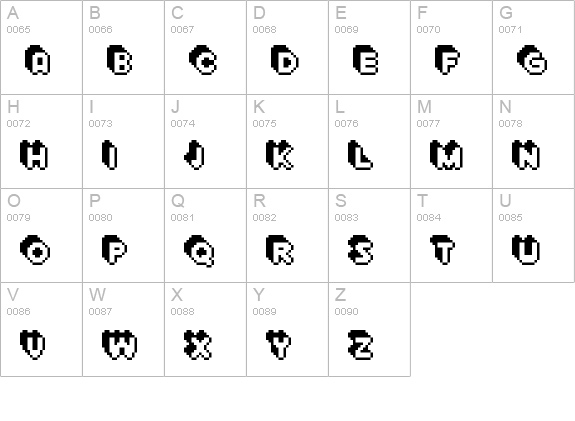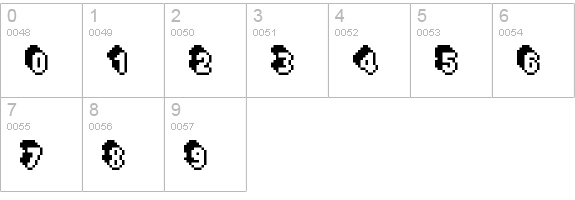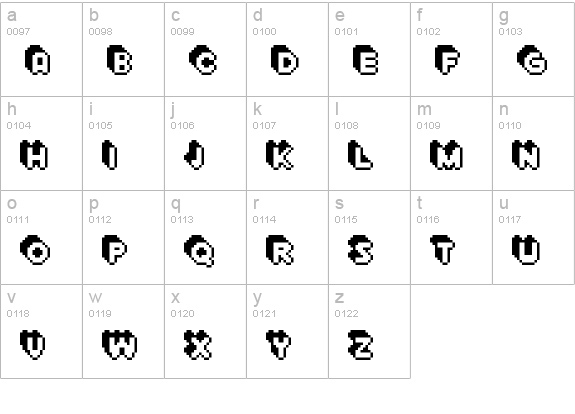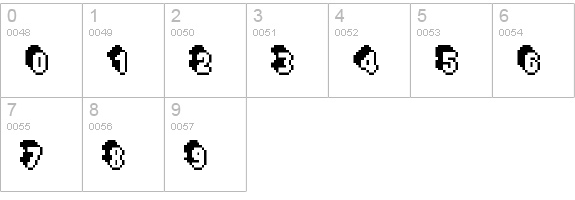
Extrude Font Details
Extrude font is a stunning and versatile typeface that exudes a sense of modernity and sophistication. Its unique design features bold and sharp lines that give it a three-dimensional appearance, making it perfect for adding depth and visual interest to any project. This font is perfect for a wide range of applications, from eye-catching headlines to stylish logos and branding materials. Its clean and well-defined letterforms make it highly readable, ensuring that your message is conveyed with clarity and impact. What sets Extrude font apart is not only its exceptional design but also the fact that it is available for free. Yes, you read that right - this incredible font can be downloaded for absolutely no cost at FontsMarket.com. So whether you're a professional graphic designer or an aspiring artist, you can now access this remarkable font without breaking the bank. With its generous range of uppercase and lowercase letters, numbers, and punctuation marks, Extrude font offers endless possibilities for creative expression. Its sleek and contemporary aesthetic effortlessly adds a touch of elegance and sophistication to any project, making it a must-have for designers seeking to make a lasting impression. So why wait? Download Extrude font for free at FontsMarket.com today and discover the endless creative possibilities it brings to your design endeavors. Unleash your imagination and let this exceptional font elevate your work to new heights.